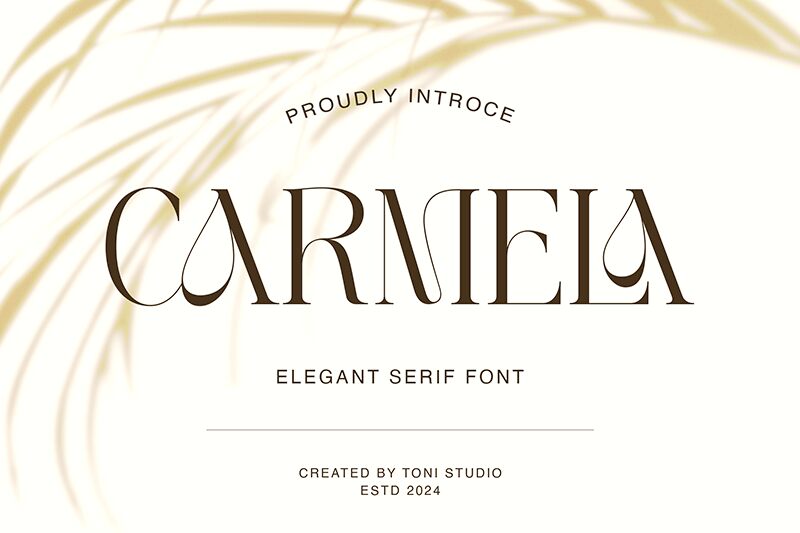
Carmela
Carmela, a captivating serif font crafted by ToniStudio, exudes an air of elegant sophistication. Its meticulously designed letterforms embody a harmonious balance of grace and strength, inviting the viewer to linger and savor each nuance. The font's refined, yet approachable aesthetic seamlessly blends traditional influences with a modern sensibility, creating a timeless appeal that can elevate a wide range of design projects.
Carmela's versatility makes it a compelling choice for a variety of applications, from editorial layouts and book covers to high-end branding and advertising campaigns. Its classic charm and legibility lend themselves beautifully to both formal and informal settings, allowing designers to infuse their work with a touch of elegance and sophistication.